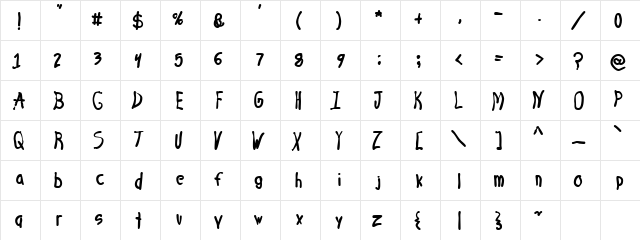
4 Star Face Font Regular
Design Context for 4 Star Face Font Typeface
4 Star Face Font is a composed and adaptable typeface that performs quietly and consistently across a wide range of design contexts.